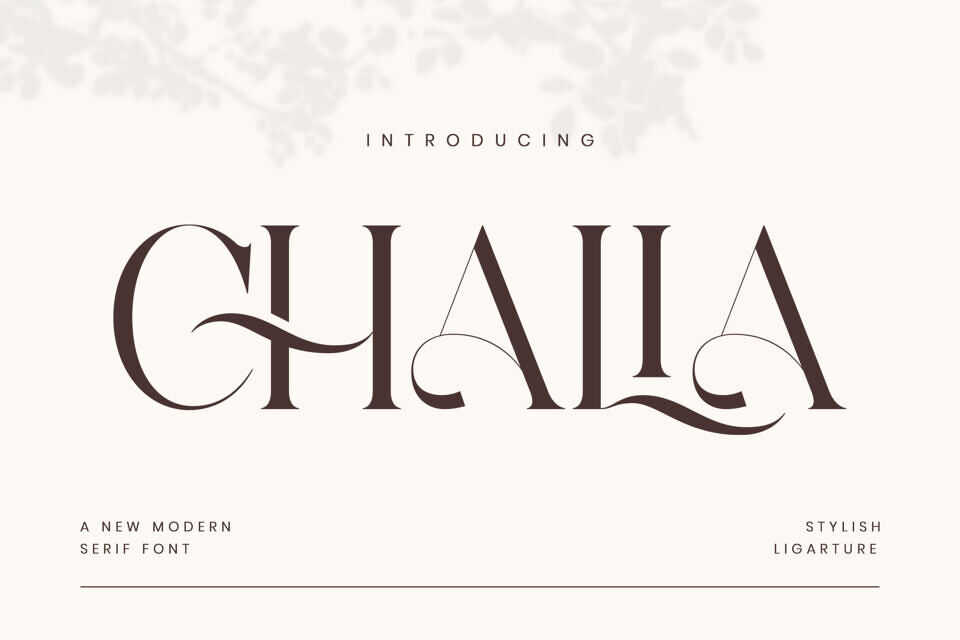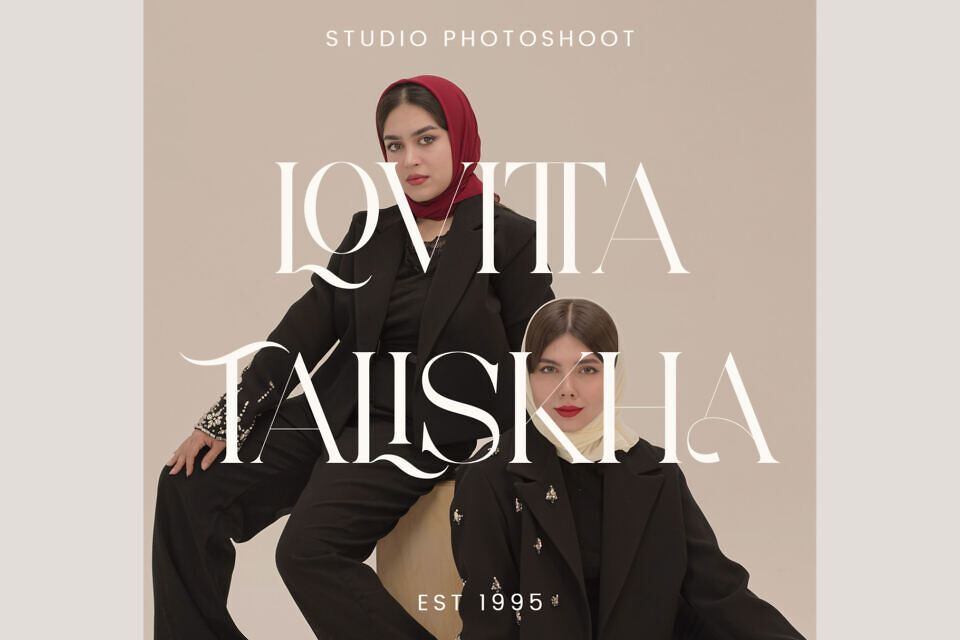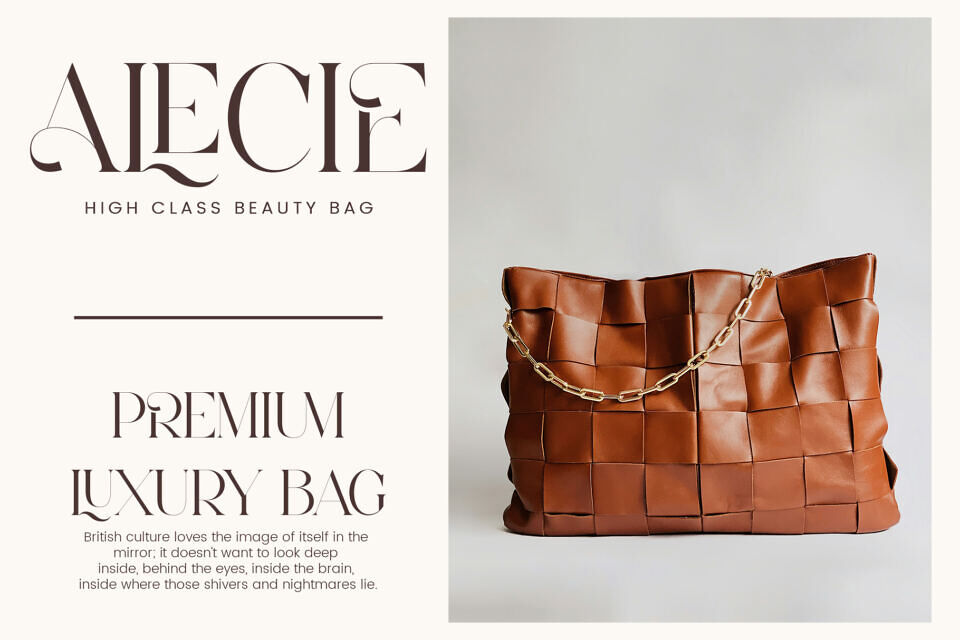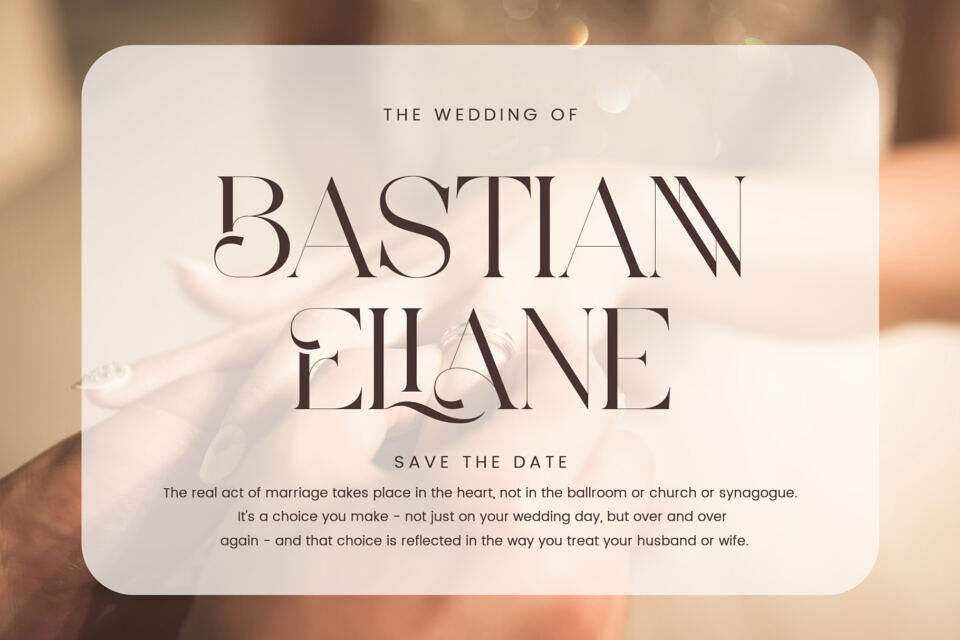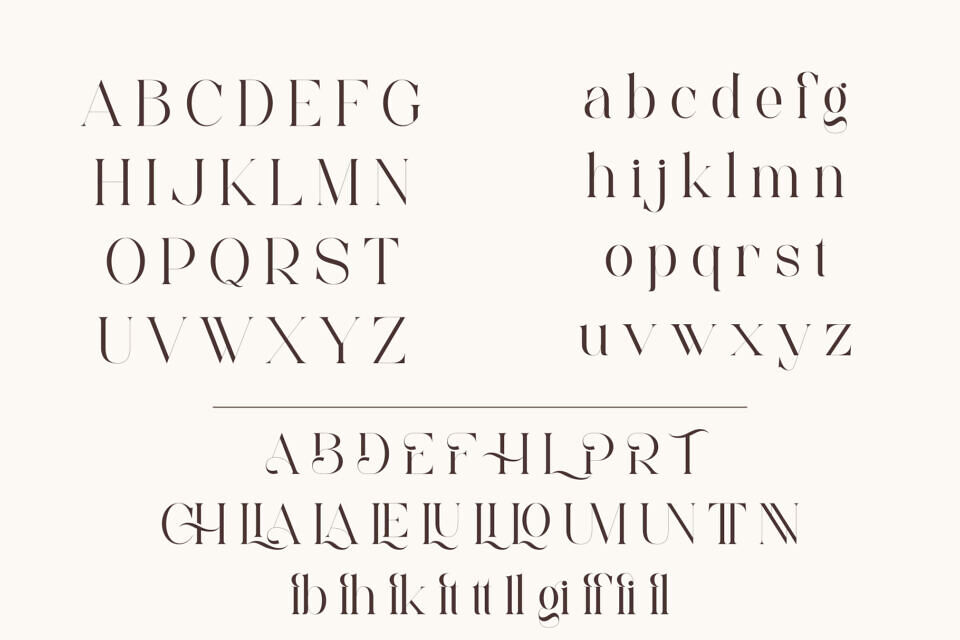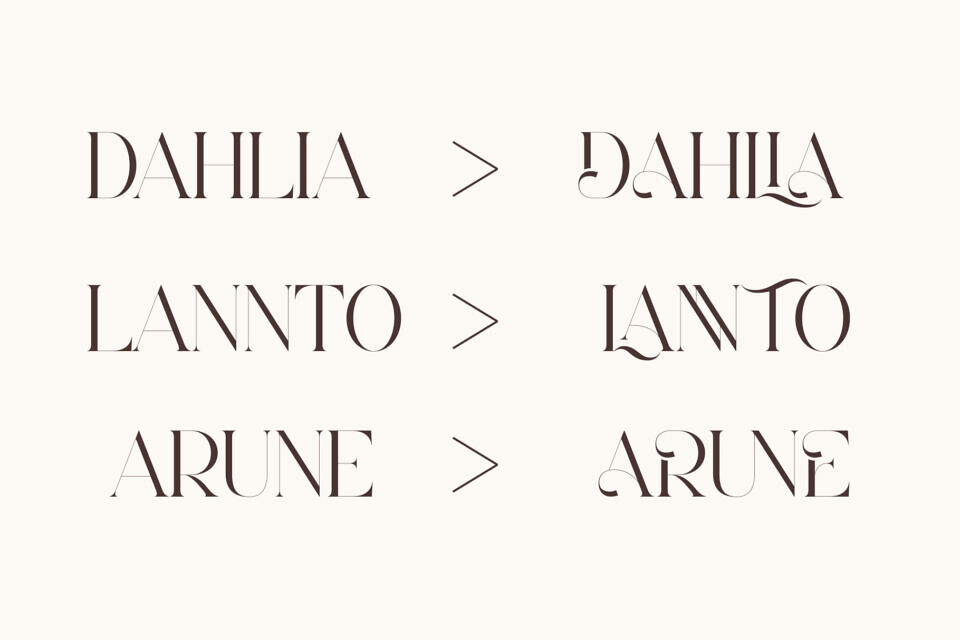
Chalia Font
Chalia is a chic, connected font inspired by a renowned minimalist emblem. It’s ideal for crafting templates, brochures, videos, and advertisements, as well as creating distinctive logos and brand identities.